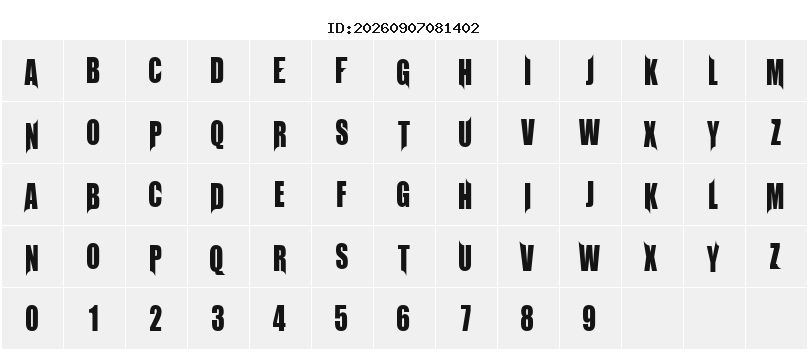
Unrealised Preview
• Font Name: Unrealised
• Full Font Name: Unrealised
About Unrealised.ttf
Unrealised.ttf is a modern, elegant sans-serif font designed for ultimate readability and visual harmony. Perfect for branding, headlines, web design, and print materials.